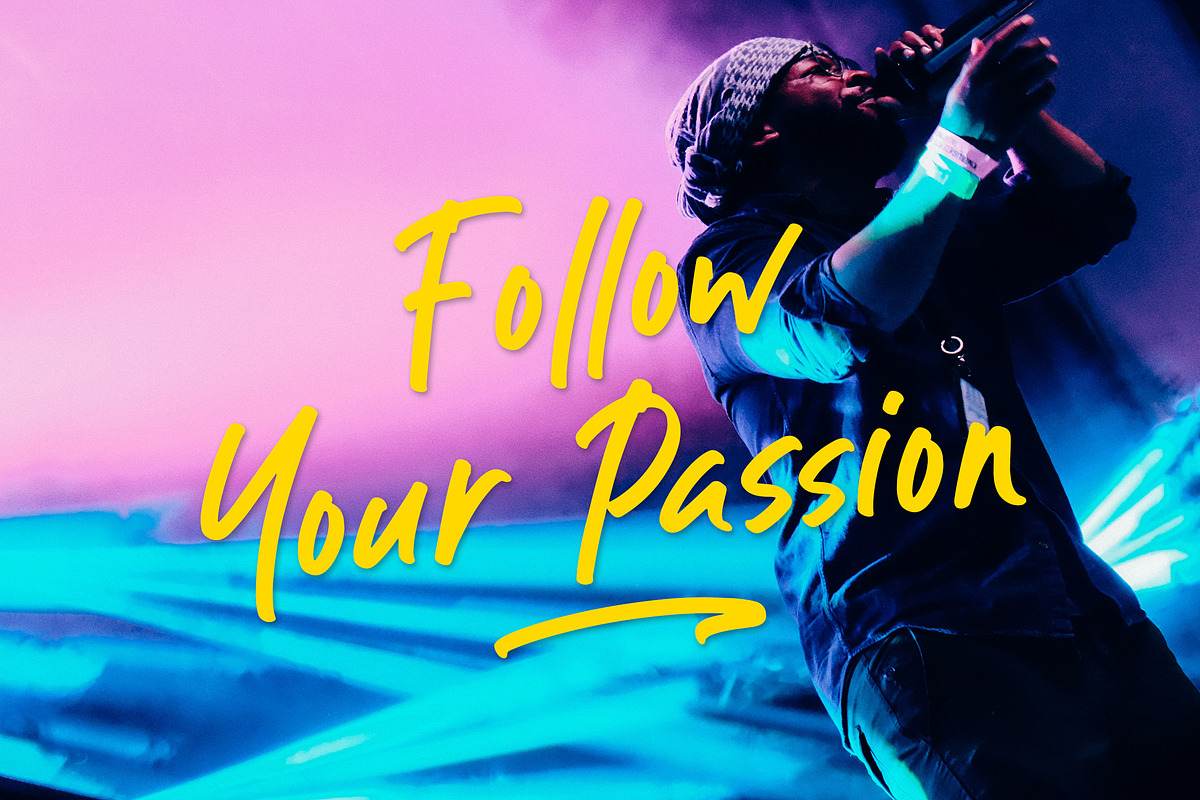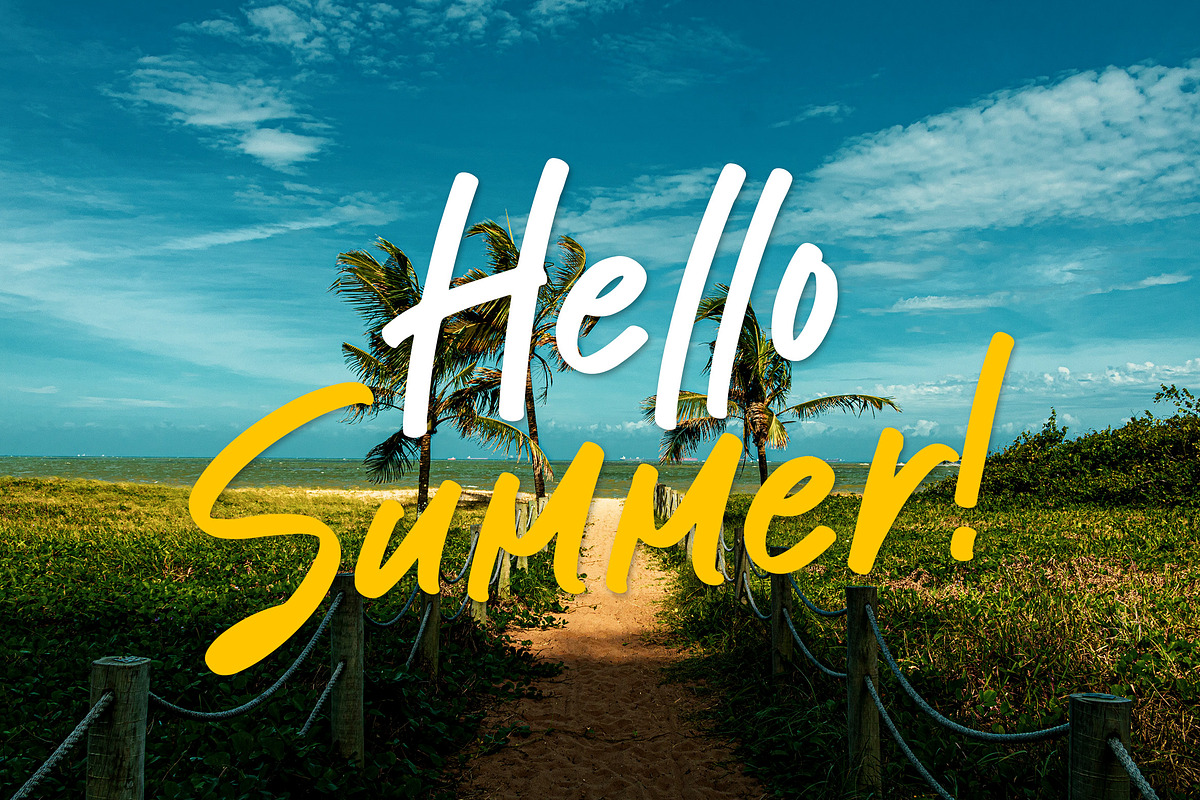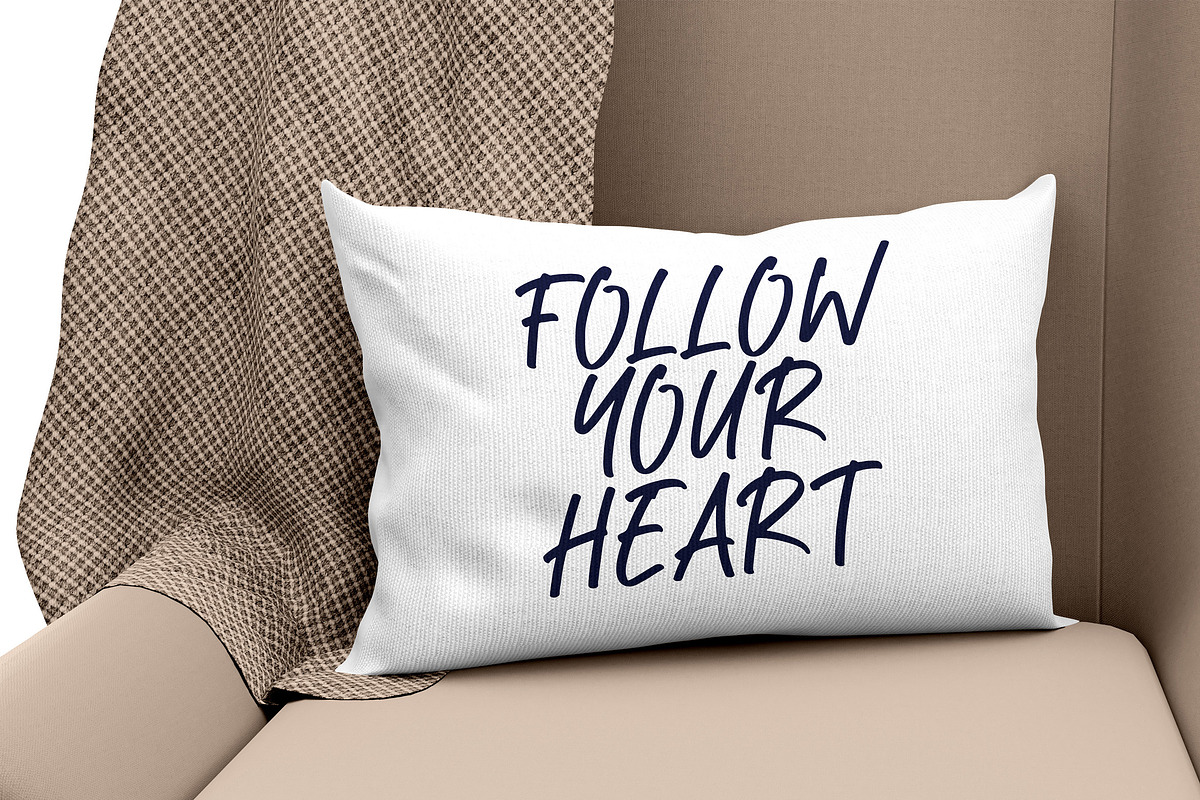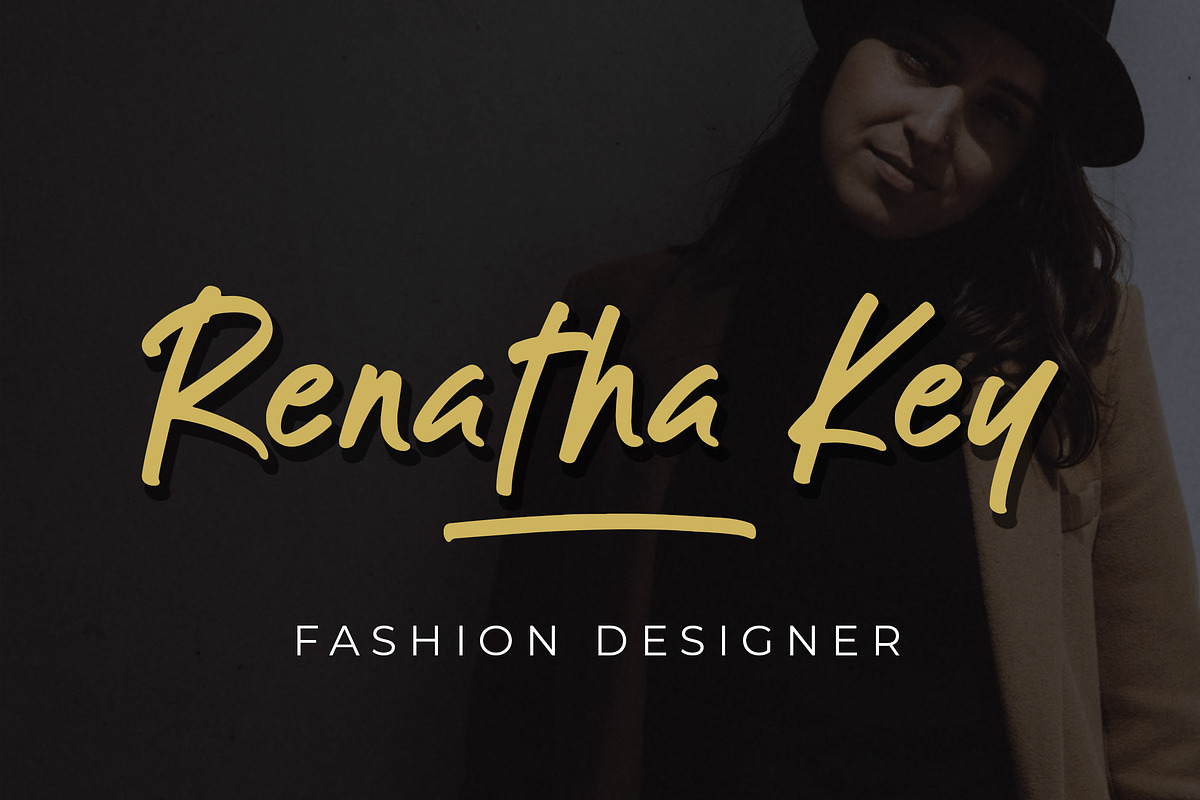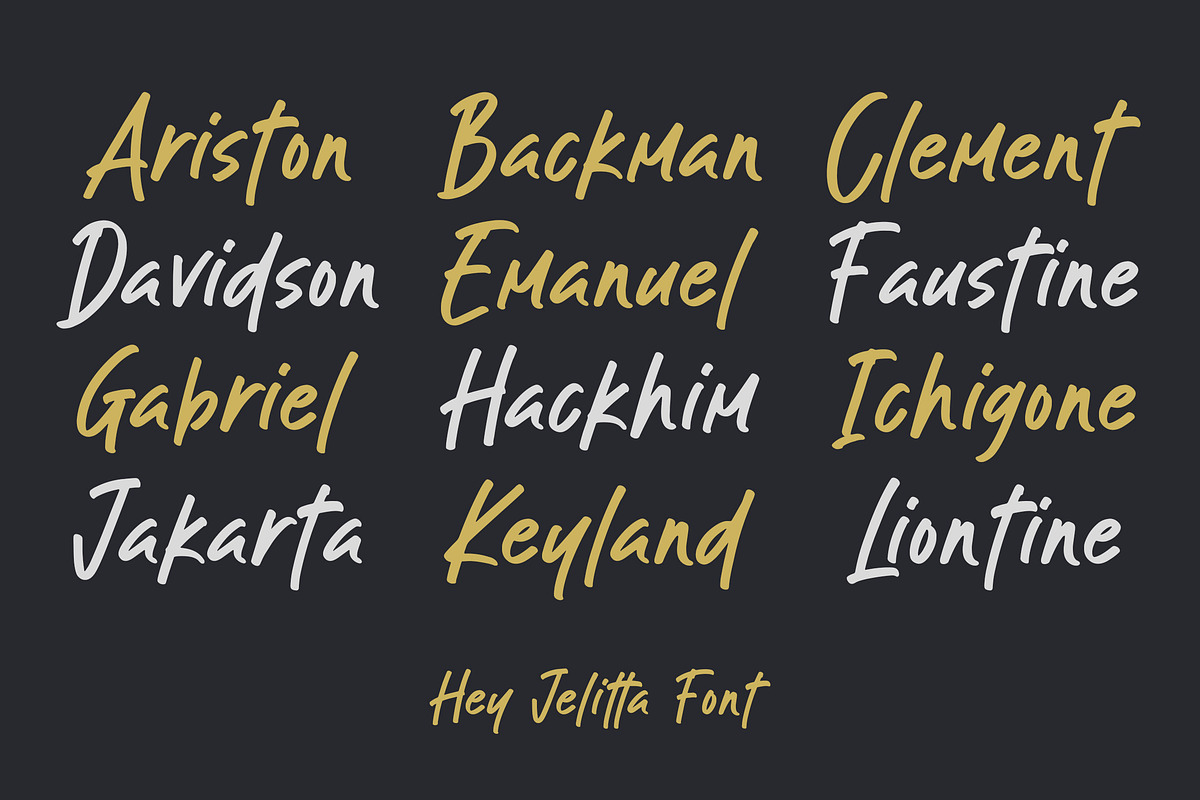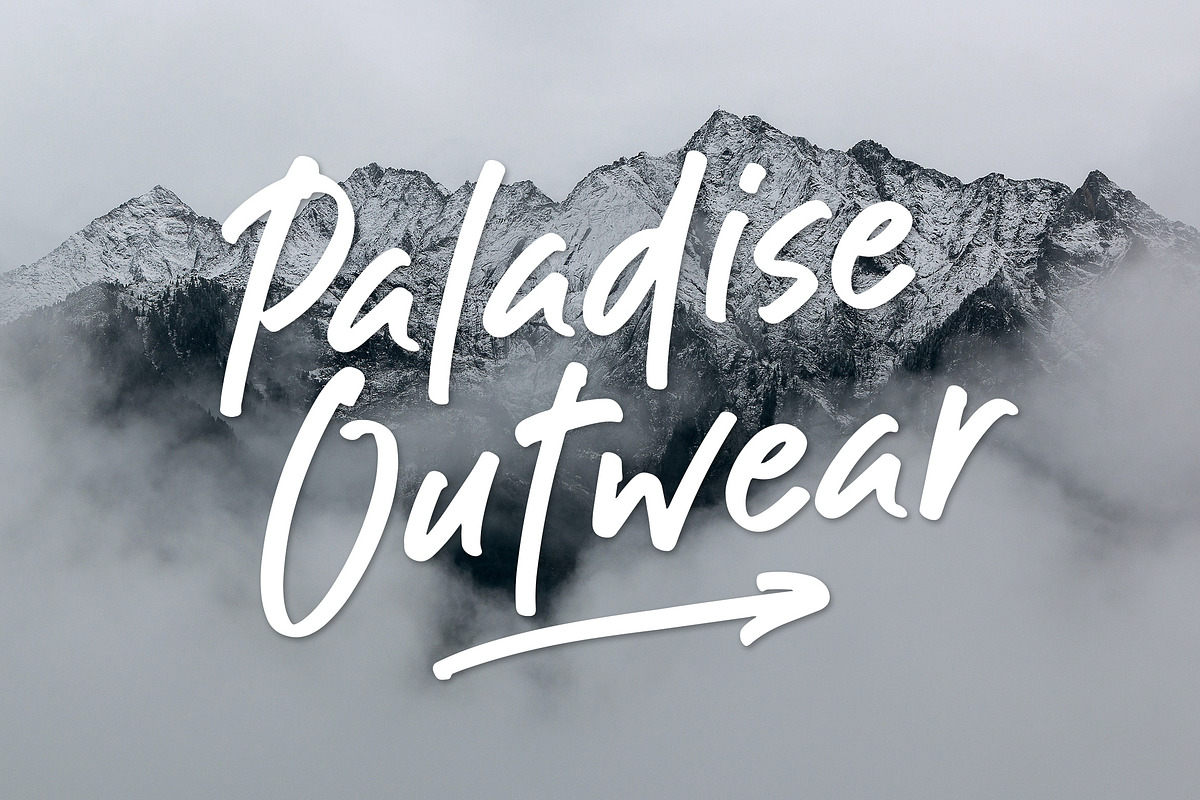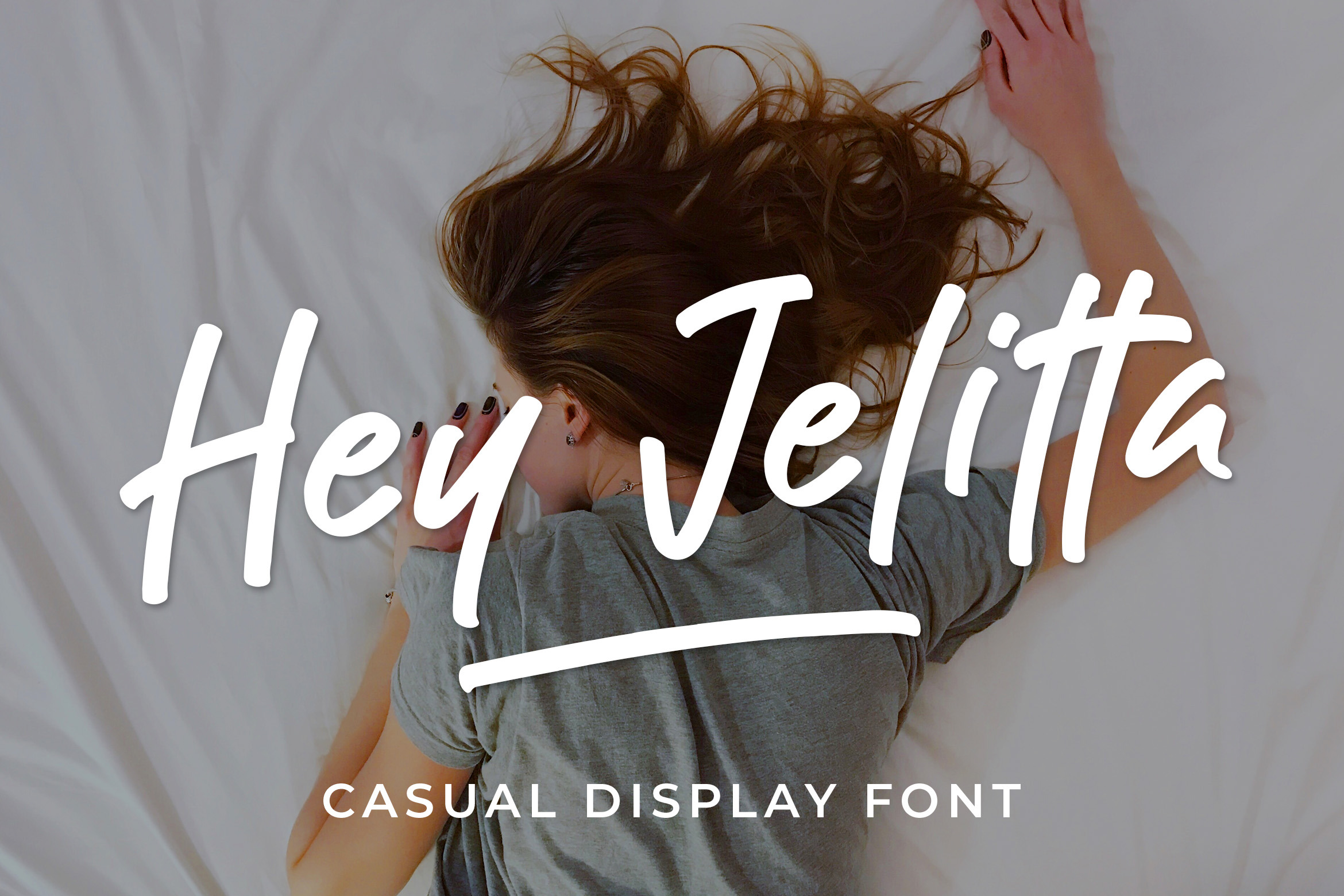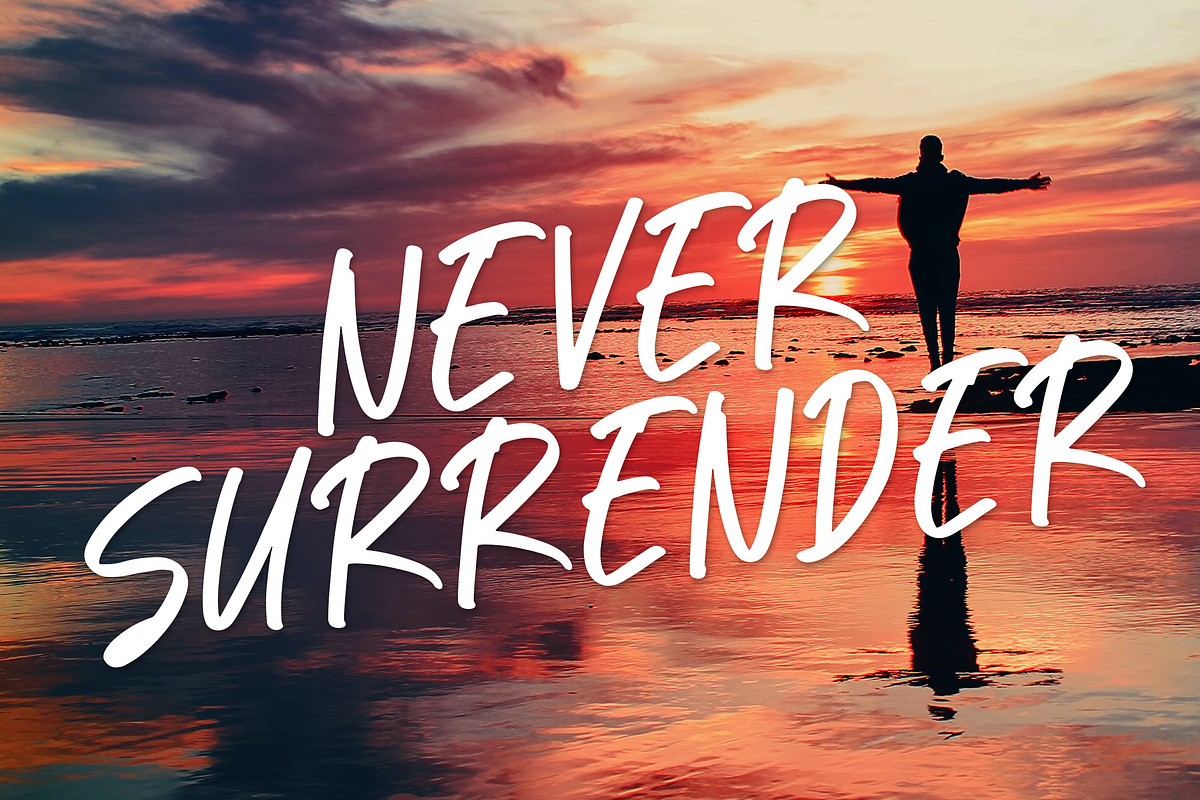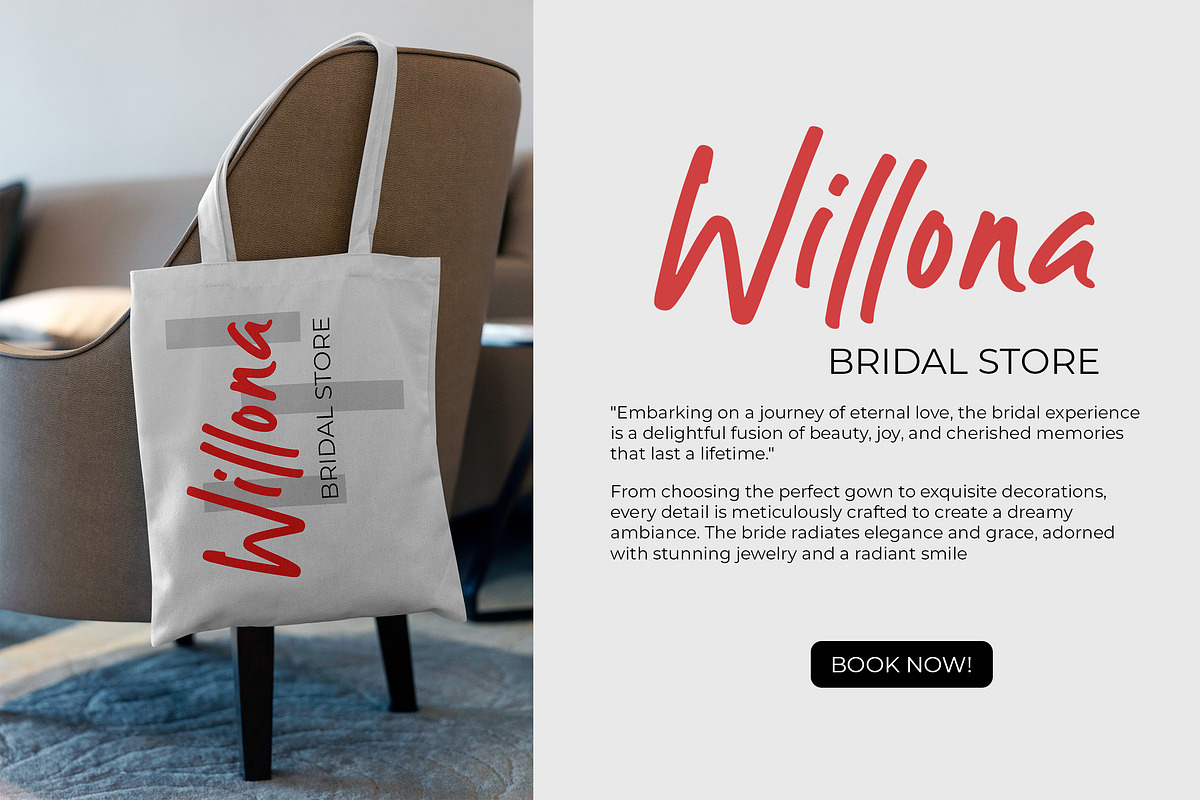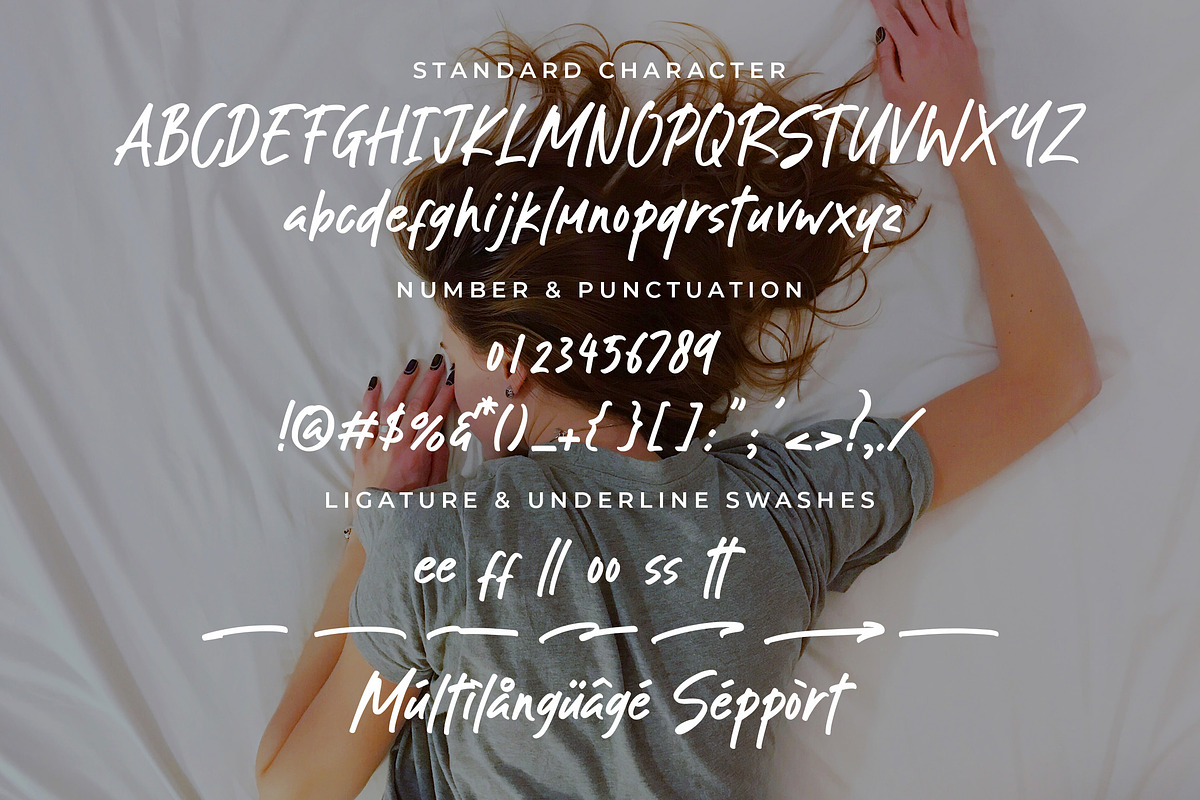
Hey Jelitta - Casual Display Font
Hey Jelitta font combines display and casual styles, the display style is bold and impactful, with meticulously crafted letters. It exudes confidence and grabs attention. the casual style has slightly slanted letterforms, resembling hand-drawn designs. It's relaxed and playful, perfect for a friendly vibe. Hey Jelitta is versatile, suitable for logos, headlines, social media, and invitations. It offers a unique blend of styles for standout designs. Overall, Hey Jelitta font provides two distinct alternatives: bold and attention-grabbing or relaxed and playful. It's a versatile choice.